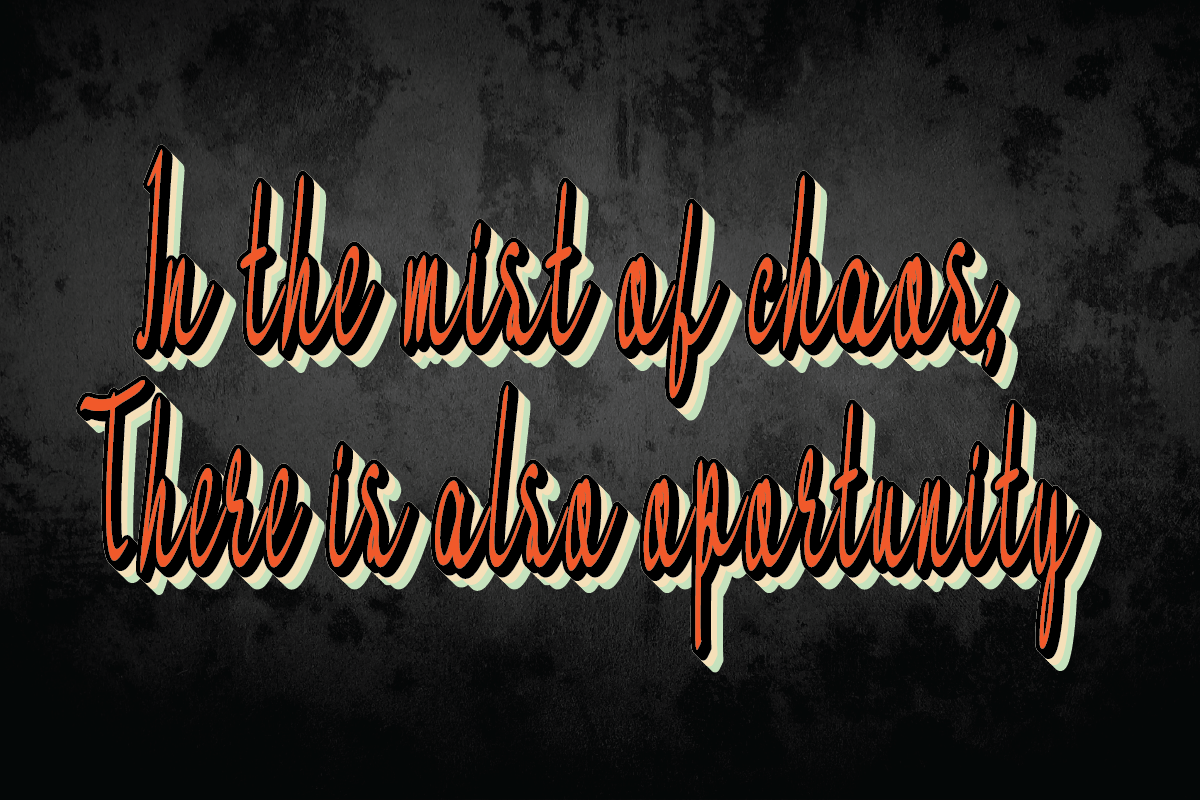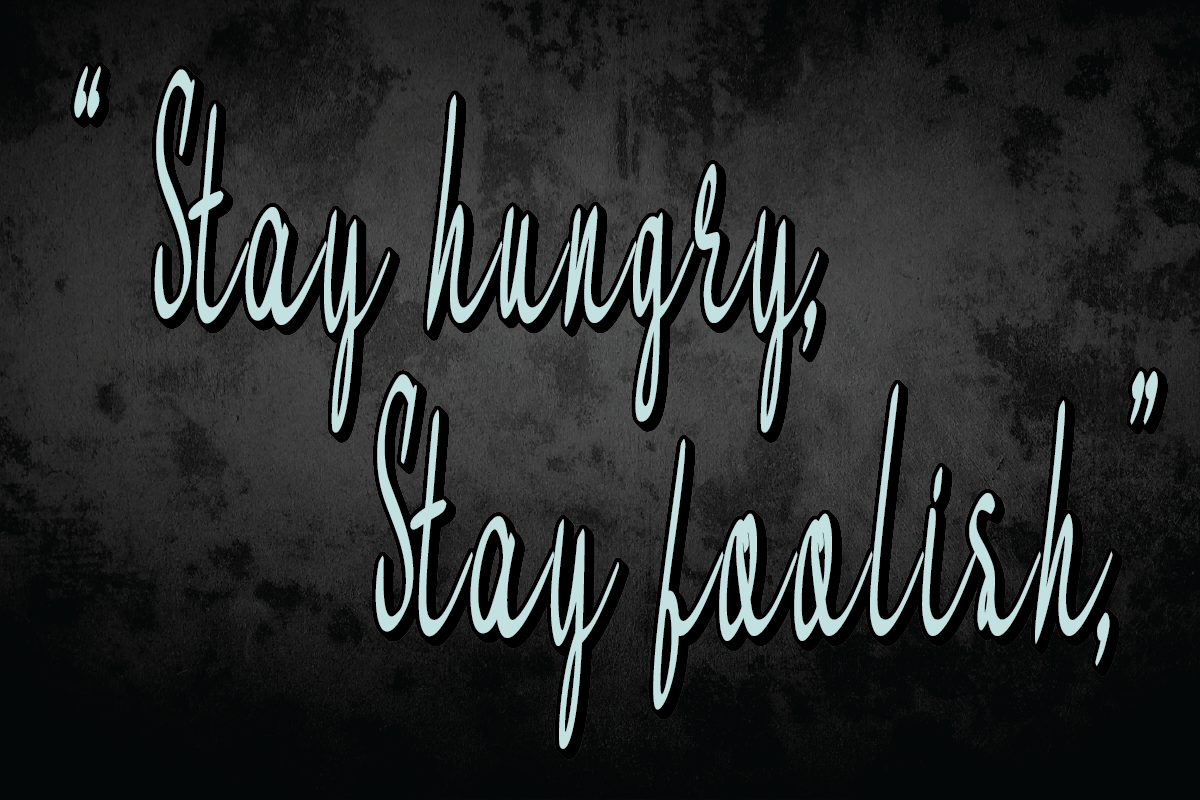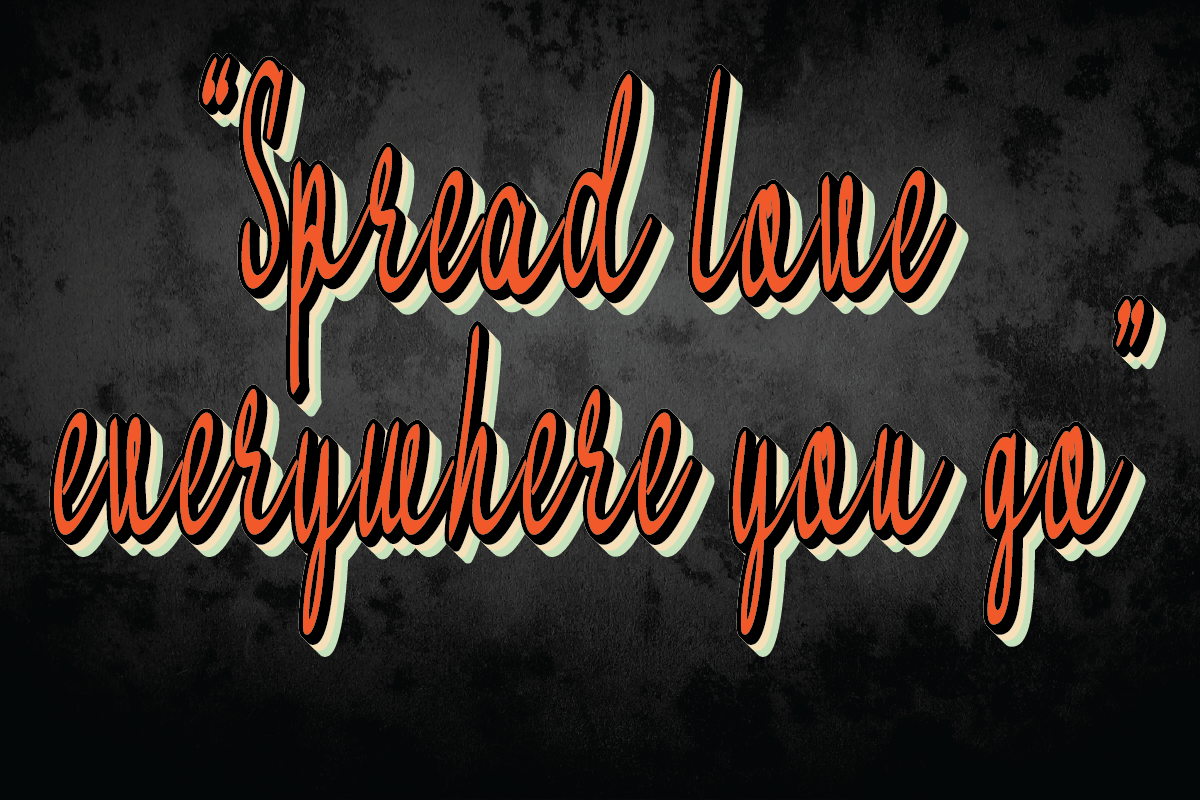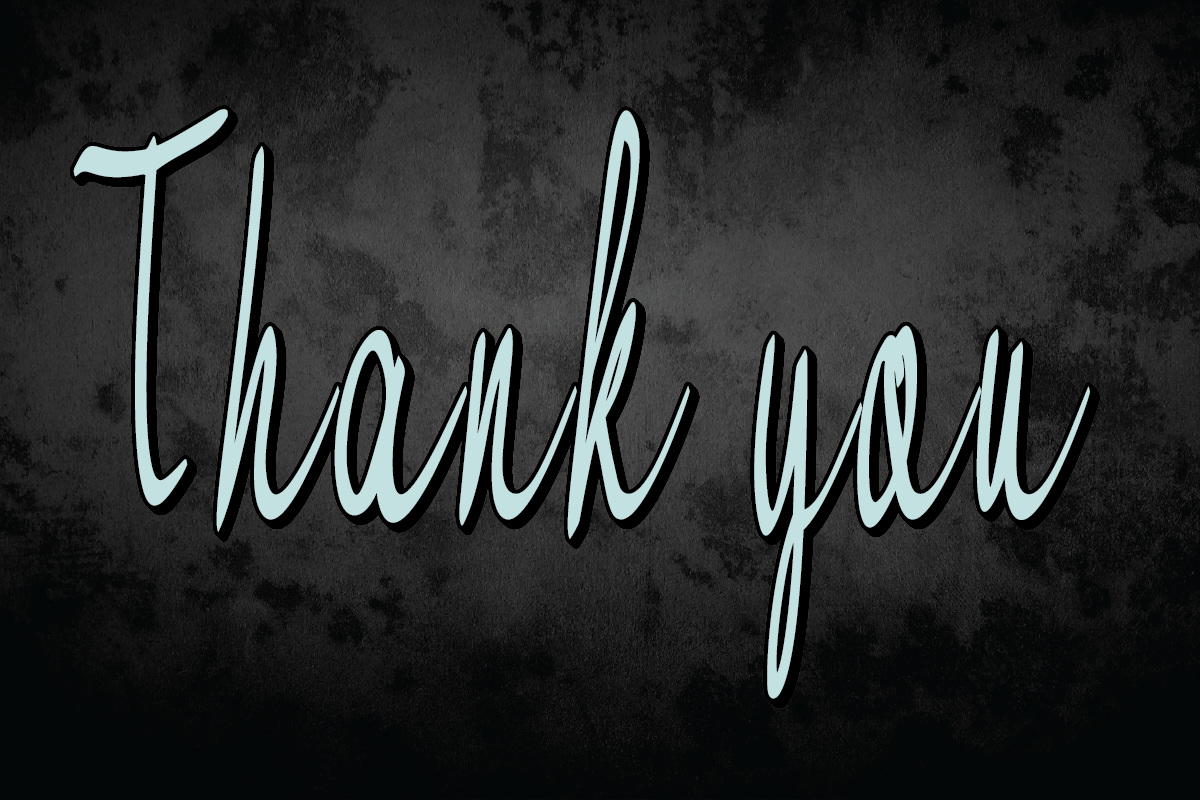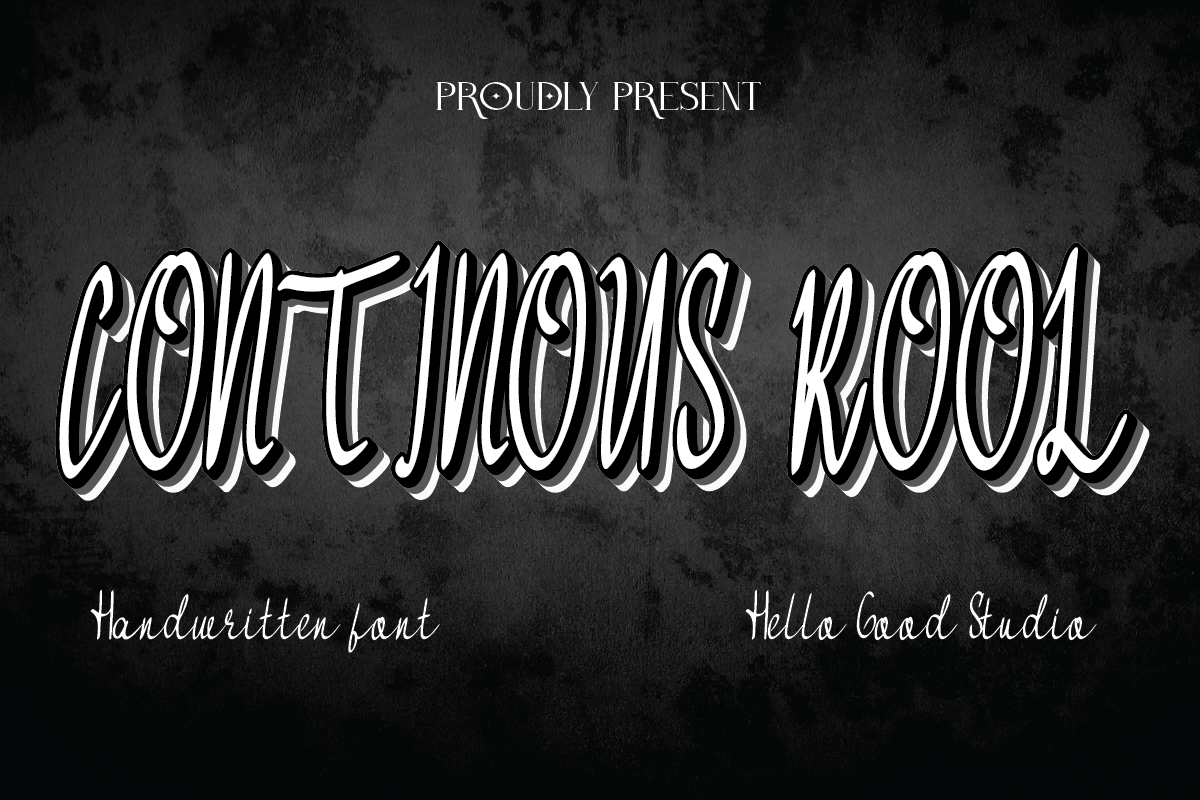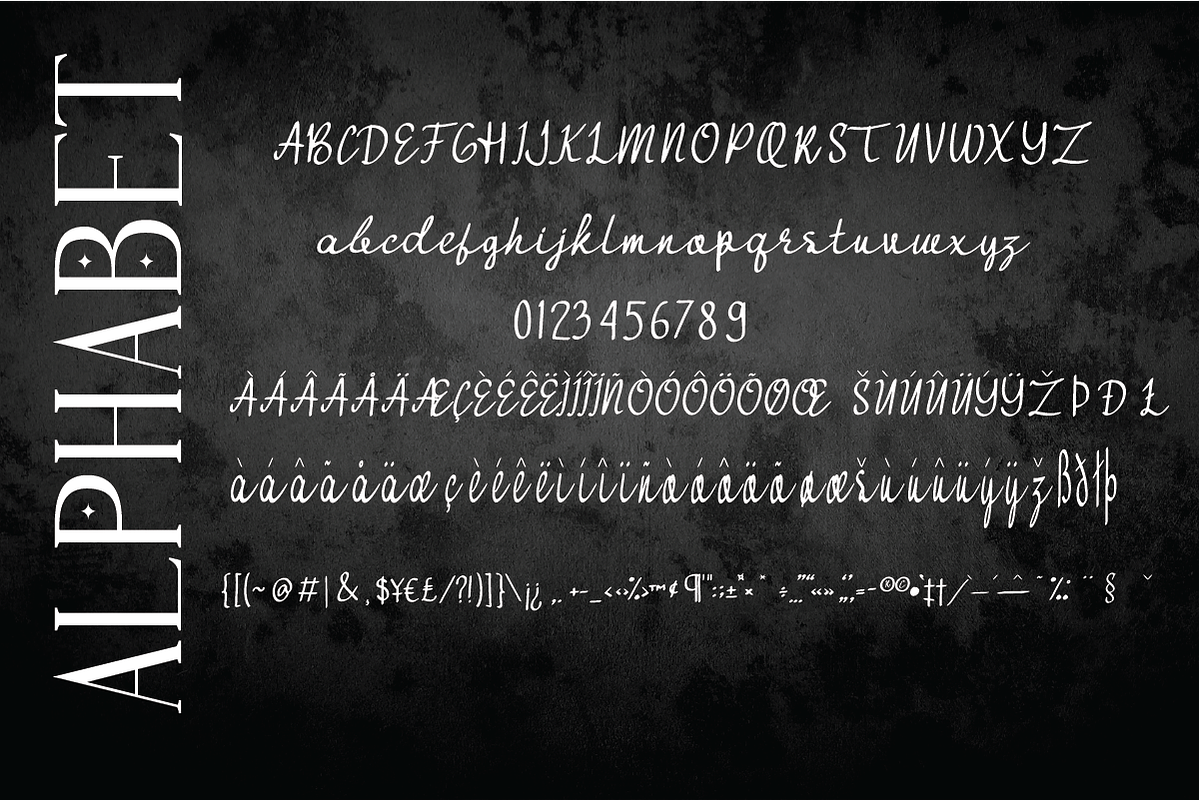
Continuous Rool
Continous roll is a handwritten script font that was deliberately created to keep it legible natural and simple so it will make a natural impression when used on the display of your work. This font is suitable for craft, display, clothing and so on, make sure you have this font to add your collection of works.
Basic Latin A-Z and a-z
Symbols
Multilanguage Support